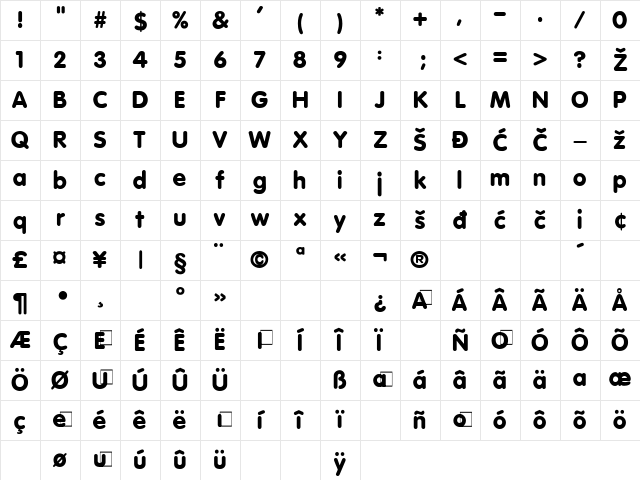
0Vog-B Regular Free Font
0Vog-B Regular
Design Context for 0Vog-B
0Vog-B is a composed and adaptable typeface that performs quietly and consistently across a wide range of design contexts.